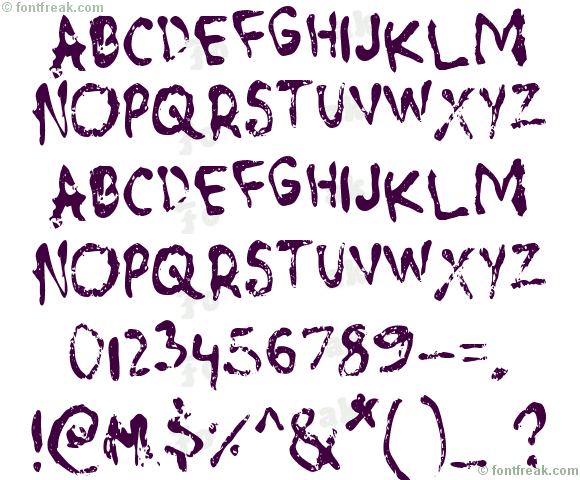
Chainsaw Carnage
About Chainsaw Carnage
The Chainsaw Carnage font by GGBot is a striking display typeface that captures a unique blend of ruggedness and creativity. Designed with a horror-inspired aesthetic, this font features sharp, jagged edges reminiscent of chainsaw cuts, giving it a distinct character that commands attention. The irregular stroke weight and high contrast between thick and thin elements create a dynamic visual impact, while the spacing between letters adds a sense of chaos, perfectly aligning with the theme of its name.
This font is particularly well-suited for a variety of creative projects. Its bold and aggressive style makes it an excellent choice for movie posters, especially in the horror or action genres, where it can evoke excitement and intrigue. Additionally, Chainsaw Carnage can be effectively utilized in merchandise designs, such as T-shirts or stickers for fans of thrillers or horror films. It can also enhance branding for small businesses in the entertainment sector, such as haunted houses or escape rooms, where a bold visual identity is crucial. Furthermore, content creators looking to add a dramatic flair to their digital content, such as blogs or social media posts, will find this font to be a captivating option.
The target audience for the Chainsaw Carnage font includes graphic designers, small business owners, and content creators who seek to make a memorable impression. Its freeware license allows for widespread use, making it accessible for those on a budget. The Chainsaw Carnage font free download provides an exciting opportunity for anyone looking to elevate their projects with a font that stands out in both style and personality. Overall, this font is not just a typeface; it's a statement piece that embodies creativity, energy, and a touch of the unconventional.